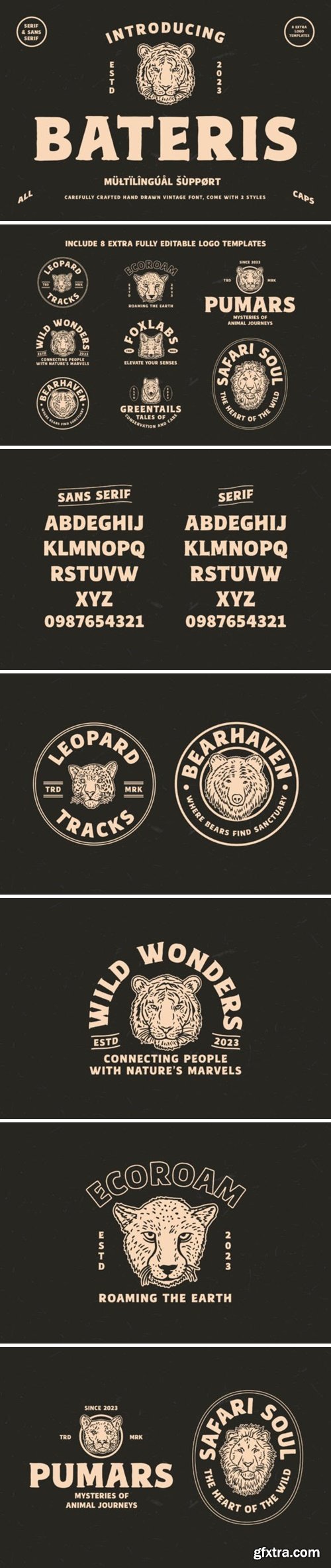
巴特尔斯字体
BATERIS is a bold serif & sans serif font and is inspired by traditional hand-drawn art. This font is very suitable as a display font as well as a font for book covers because it has a high readability. It also has multilingual support, numbers, and punctuation, it’s rare to find a hand-drawn font that has all these features. BATERIS perfect for making logo designs, badges, packaging, posters, t-shirt designs, and more. fonts give a hand-drawn desert feel to your design.